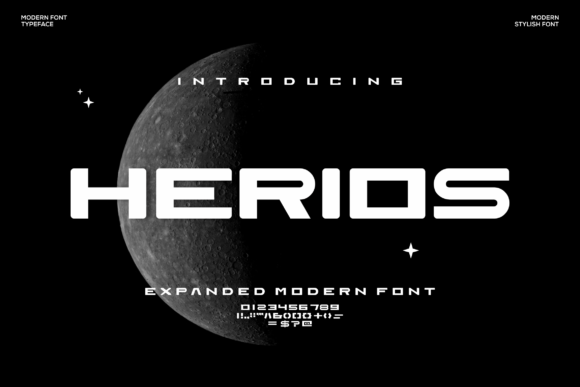
Stunning Typography: Discover the Power of Herios Font
Have you ever been brainstorming a new design project, and suddenly a spark of creativity hits you? The words start flowing, and you envision the perfect visual representation of your idea. For many designers, this is the moment when the magic happens. And what’s the key to making that vision a reality? A font that stands out from the crowd. That’s where Herios Font comes in – a stylish, modern font designed to make your words shine.
With its extra space and bold lines, Herios Font is perfect for creating eye-catching posters, headlines, and logos. Its clean, expanded design adds a touch of contemporary flair to any project, making it a valuable asset for designers looking to elevate their work. Whether you’re a seasoned pro or just starting out, Herios Font is sure to be a game-changer in your creative process.
Herois Font Key Features
- Size: The font family includes multiple weights and styles, ranging from 100 to 900, allowing for a high degree of customization and flexibility in typography.
- Unique Characteristics: Herois Font features a unique blend of geometric and organic elements, creating a distinctive and modern aesthetic that is perfect for contemporary designs.
- Kerning and Ligatures: Herois Font includes advanced kerning and ligature tables, ensuring that text is rendered with precision and elegance, even in complex layouts and compositions.
Designer Review: Herios Font
Overall, I think Herios Font is a solid choice for designers looking for a clean and modern sans-serif font. ✨ It’s particularly well-suited for digital applications where readability is key. Here are some of its strengths:
- ✨ Legibility: Herios Font is designed with readability in mind, making it perfect for body text and digital displays.
- ✨ Versatility: It’s available in multiple weights and styles, allowing designers to create a consistent visual identity across different platforms.
- ✨ Contemporary feel: Herios Font’s design is on-trend, making it a great choice for modern branding and design projects.
- ⚠️ Limited expressiveness: While Herios Font is great for clean, modern designs, it may not be the best choice for projects that require a lot of personality or character.
- ⚠️ Limited support for certain languages: Herios Font may not be as effective for languages that require more nuanced typography, such as those with complex script systems.
Overall, I think Herios Font is a great addition to any designer’s toolkit. It’s not perfect, but it’s a solid choice for a wide range of design projects. With careful consideration of its limitations, it can help designers create beautiful, modern designs that effectively communicate their message.
Tips for Getting the Most Out of Herois Font
Herois Font is a versatile and modern font that can be used in a variety of applications. Here are some tips for getting the most out of it:
- Use Herois Font for headlines and titles to add a touch of sophistication and elegance.
- Pair Herois Font with other fonts to create a unique and eye-catching design.
Herois Font is perfect for:
- Business presentations and reports.
- Marketing materials and advertising.
- Website design and development.
- Graphic design and visual arts.
- Choose a bold or script version of Herios Font to add contrast to your design.
- Use a watercolor brush in your design software to add subtle texture and blending effects.
- Experiment with layer blending modes to create a sense of depth and luminosity.
- Pair Herios Font with delicate, hand-drawn illustrations to add a touch of whimsy.
- Use a watercolor background with subtle texture to create a dreamy, atmospheric effect.
- Experiment with different colors and textures to create a unique, one-of-a-kind design.
Exploring Creative Projects with Herios Font
Project 1: Whimsical Watercolor Quote
Create a dreamy, hand-painted effect with Herios Font and combine it with watercolor textures to evoke a sense of ethereal wonder.
Project 2: Minimalist Typography Poster
Use Herios Font to create a striking, minimalist poster that showcases the beauty of typography.